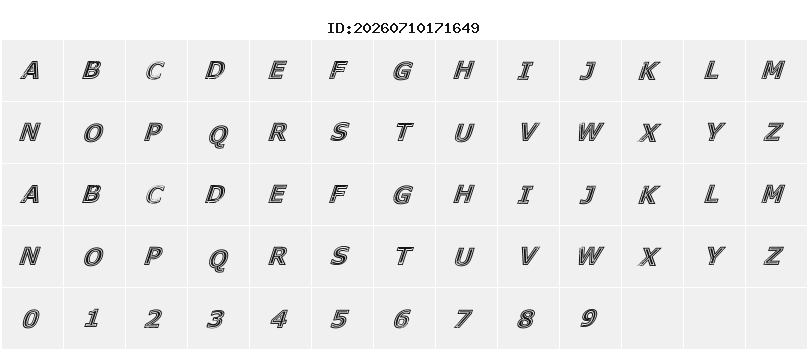
• Font Name: Genesee St Black
• Font Style: Black Italic
• Full Font Name: Genesee St Black Italic
• Designer: Chris Vile
• Manufacturer: Font Monger
• Description: Genesee St Black Italic is a font by Font Monger, designed by Chris Vile in 2015.
Genesee St Black.ttf is a modern, elegant sans-serif font designed for ultimate readability and visual harmony. Perfect for branding, headlines, web design, and print materials.